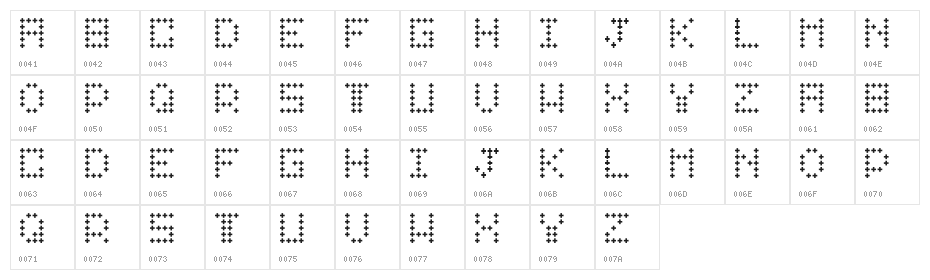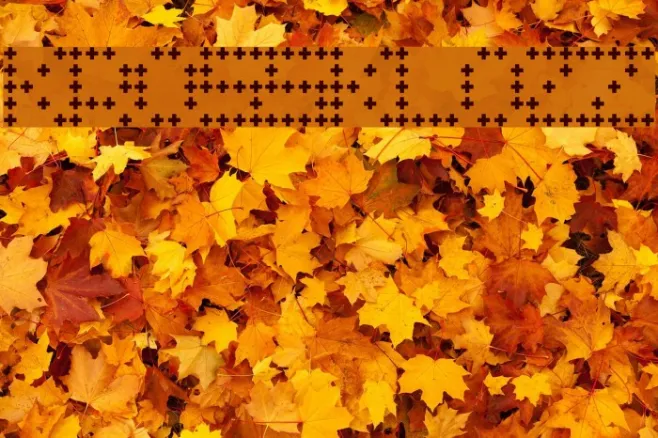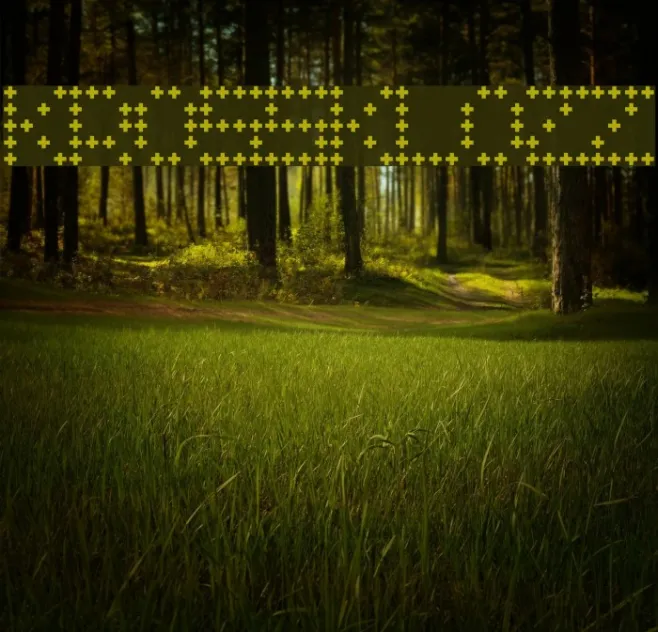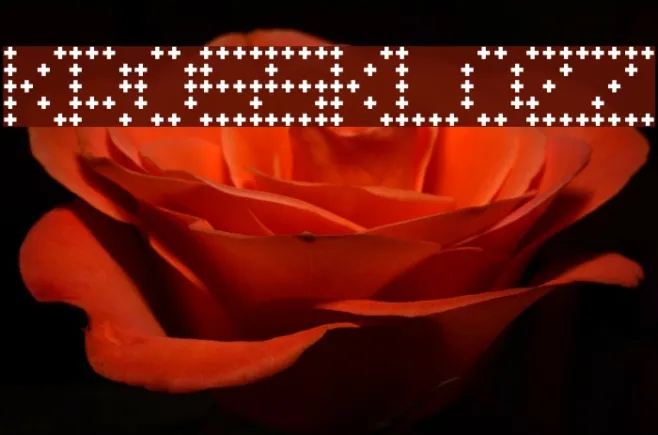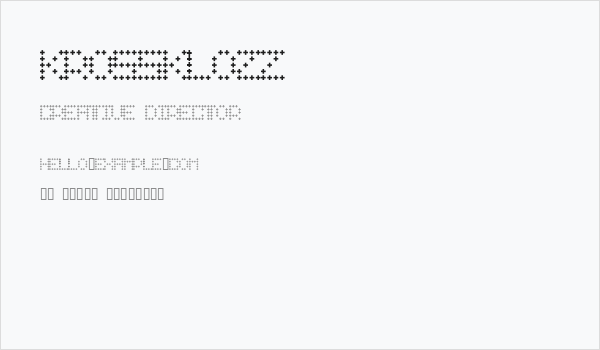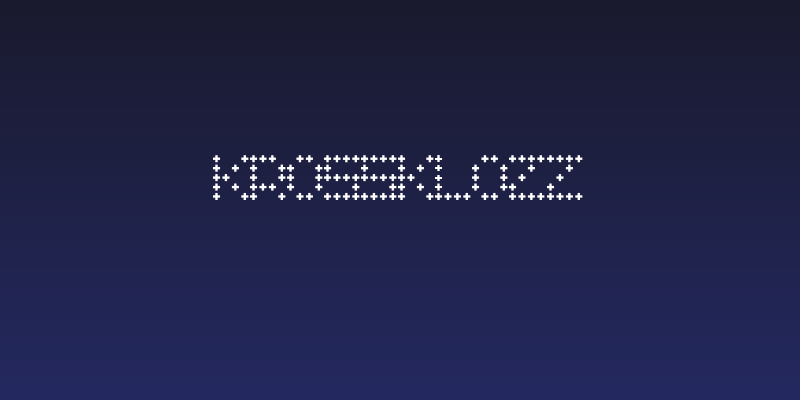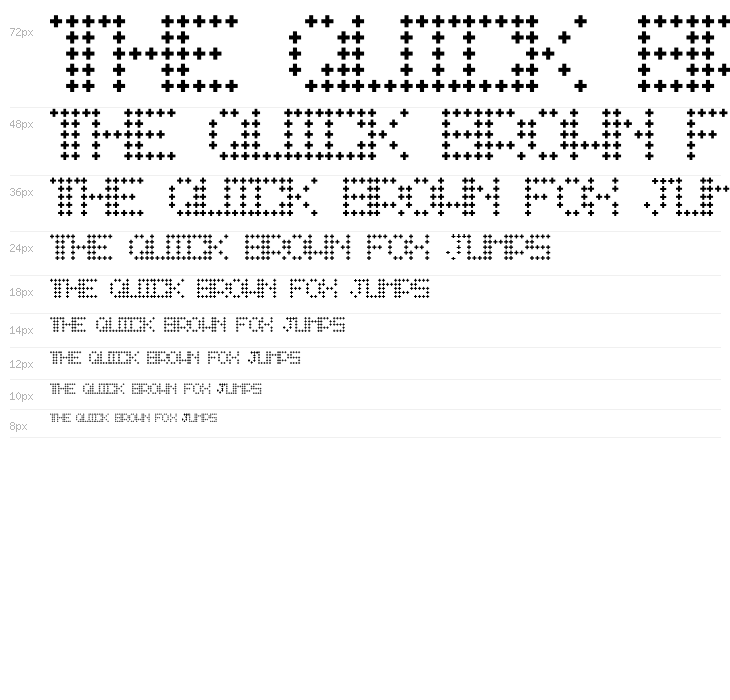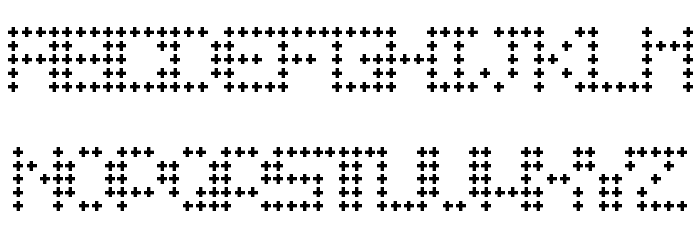
krossklozz Font
krossklozz Description
This font features a unique design where each character is constructed using a grid of plus signs, creating a pixelated and digital appearance. The characters are evenly spaced and maintain a consistent size, giving the font a structured and uniform look. The use of plus signs as the building blocks adds a playful and creative element, making it stand out as a decorative typeface. The overall style is reminiscent of retro digital displays, which can evoke a sense of nostalgia while also appearing modern and innovative. This font is particularly suitable for projects that aim to capture attention with its distinctive and unconventional style.
| Overall Style | Modern, Retro |
| Proposed Projects | Ideal for digital art, retro-themed designs, video game graphics, and creative posters. |